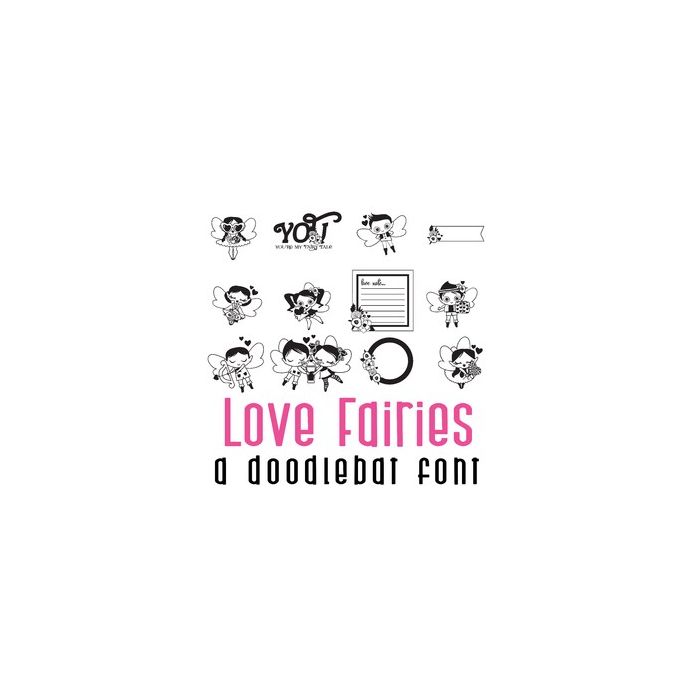
This adorable doodlebat font features 26 love fairies perfect for Valentines, love, parties, decor, card making, crafts, planner stickers, classrooms, gifts, scrapbook pages and more!